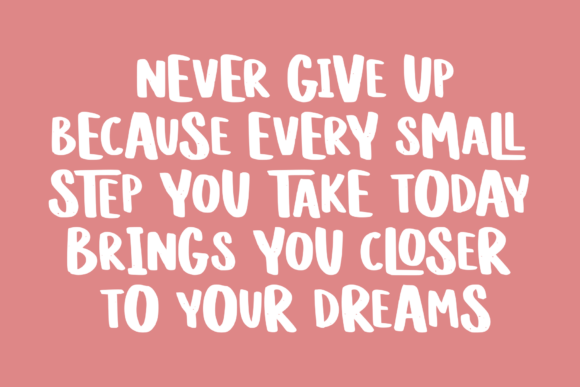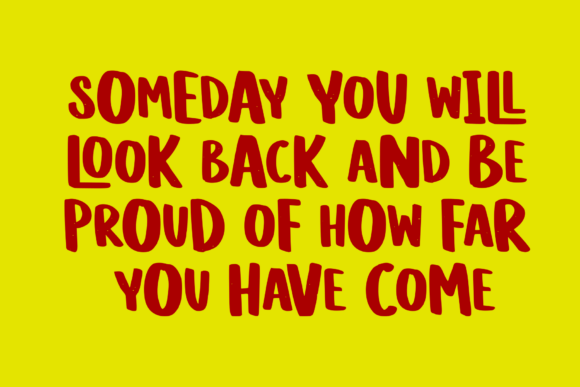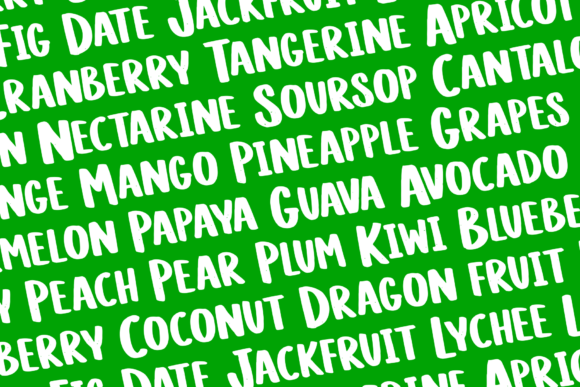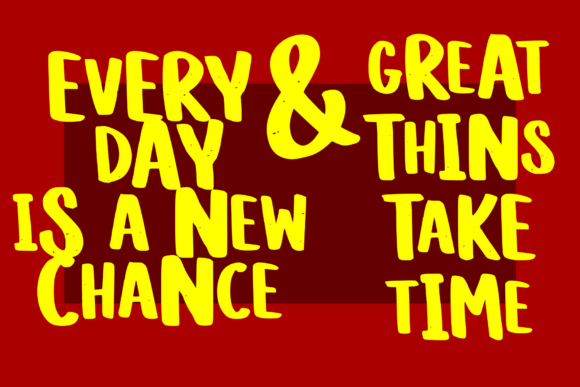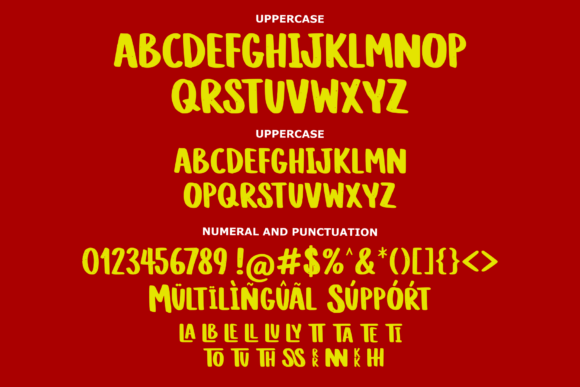
Introduction to Chubikoly Font
Chubikoly is a cheerful and bold display font with thick, rounded letterforms that bring a fun and energetic feel to any design.
The bold strokes and slightly irregular shapes create a friendly, cartoon-like personality, making it perfect for childrenโs projects, posters, branding, packaging, and attention-grabbing headlines Chubikoly adds a playful and lively touch that immediately catches the eye and makes your designs feel more expressive and playful.
Key Features of Chubikoly Font
Why Choose Chubikoly Font?